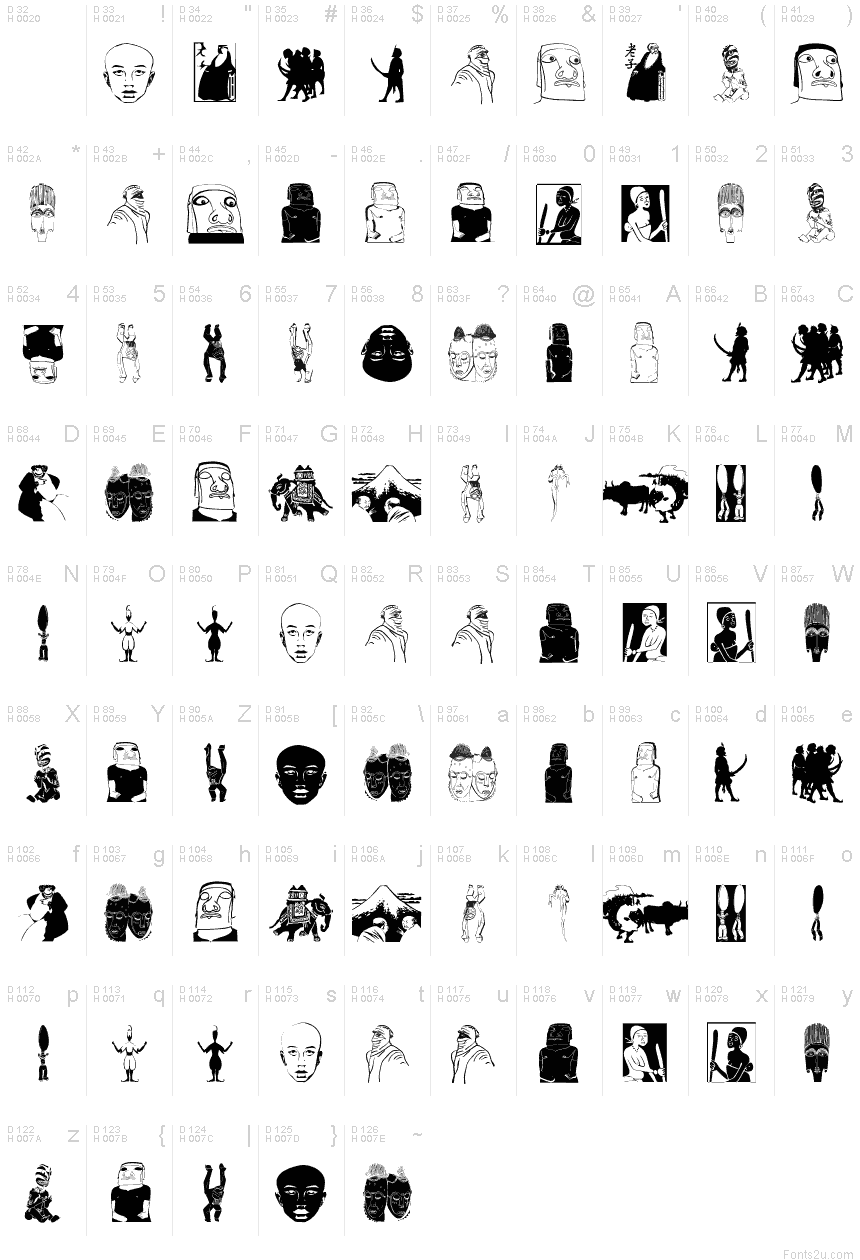
EthnicReconstructions
Ethnic Reconstructions by Manfred Klein is a free hand-drawn dingbat font built from masks, statues, costumed figures, and decorated animals. The drawings use loose black outlines, uneven fills, and a woodcut-like roughness. Each symbol feels distinctly illustrated.
Because its subjects resemble museum sketches and folk-art motifs, the collection can connect directly with artifact photography or ornamental patterns in exhibition posters and editorial spreads. It also suits cultural event programs and themed merchandise, where an individual symbol can become an emblem, border ornament, or narrative image rather than serving as ordinary text.